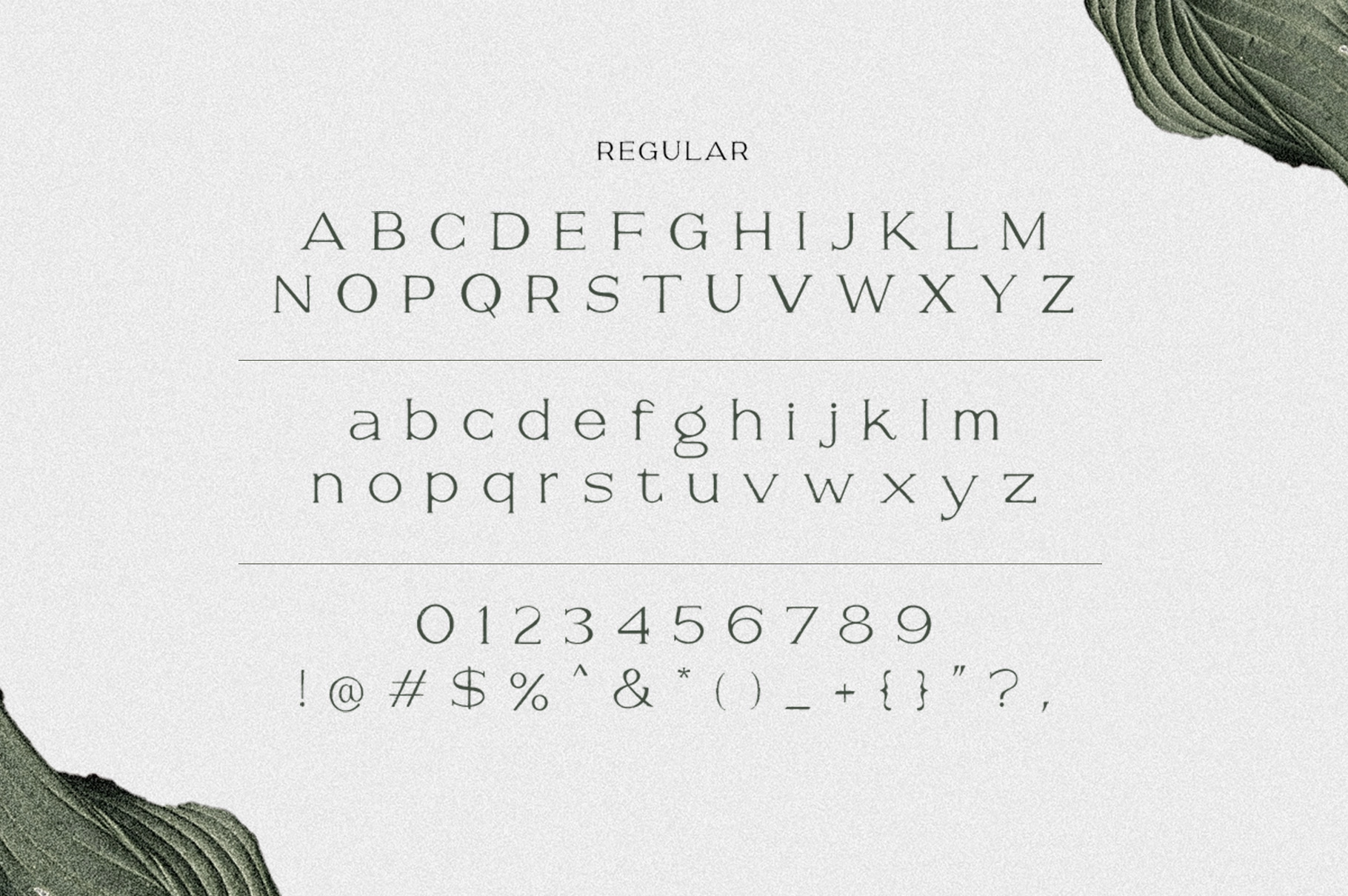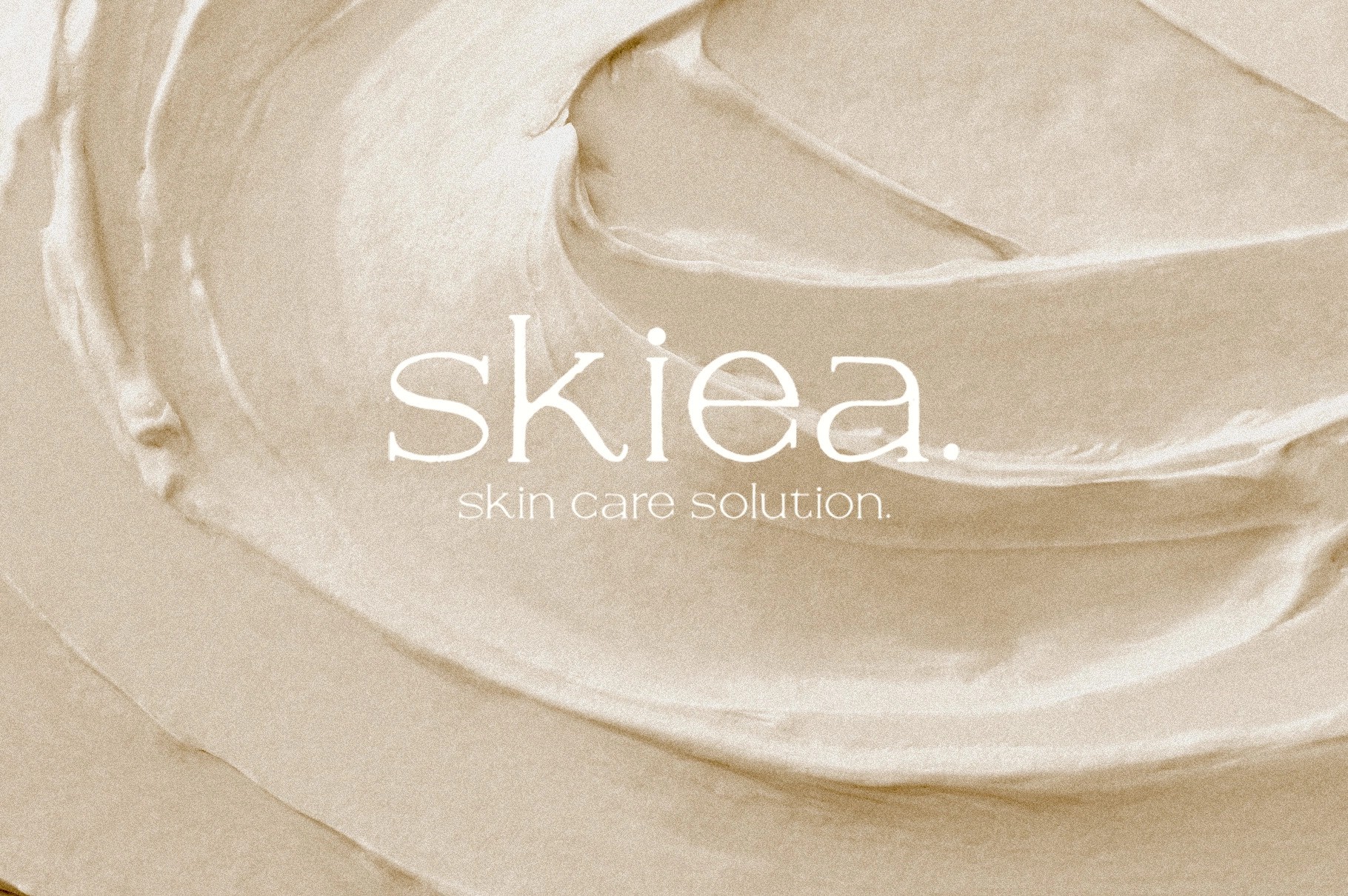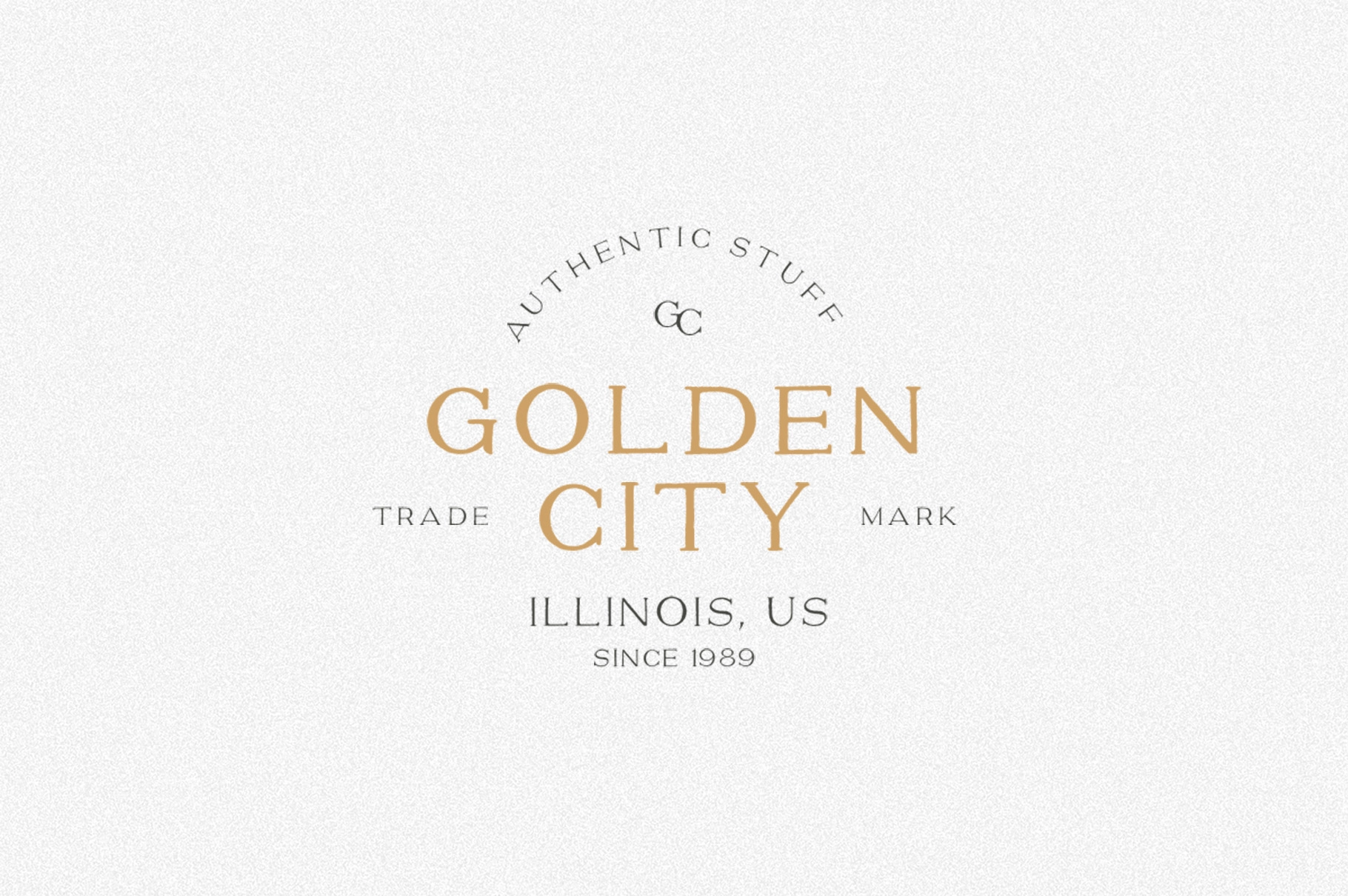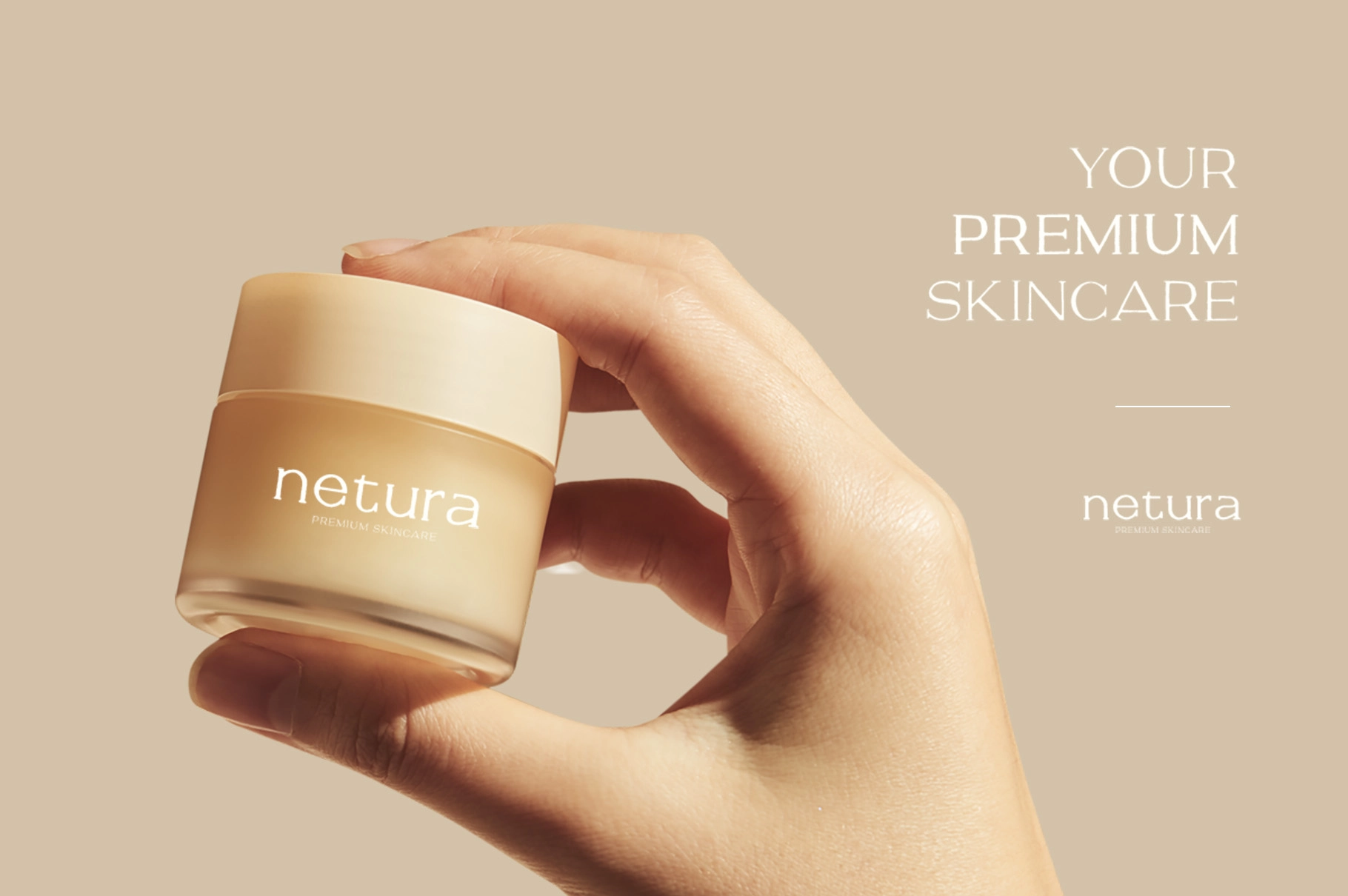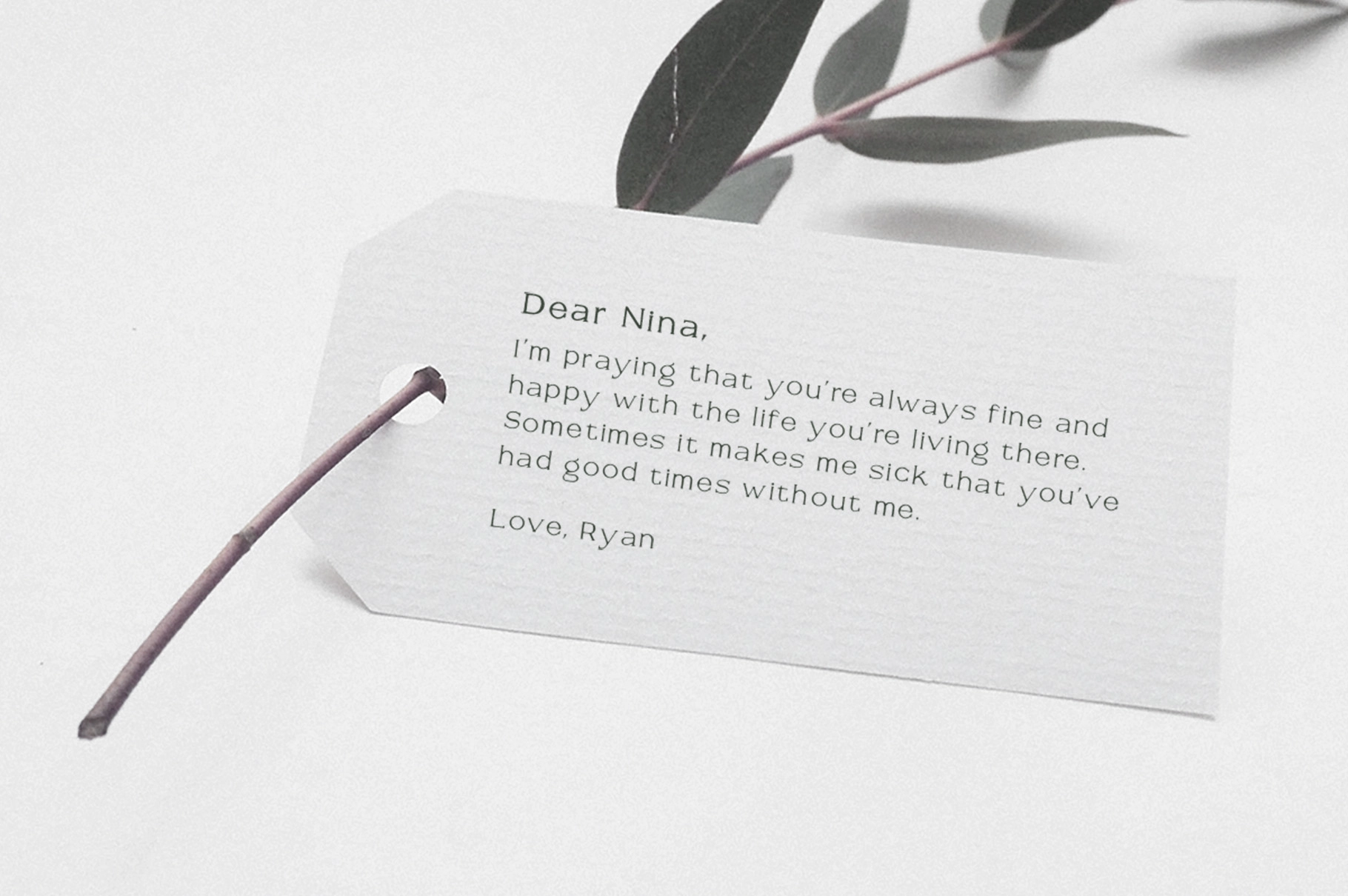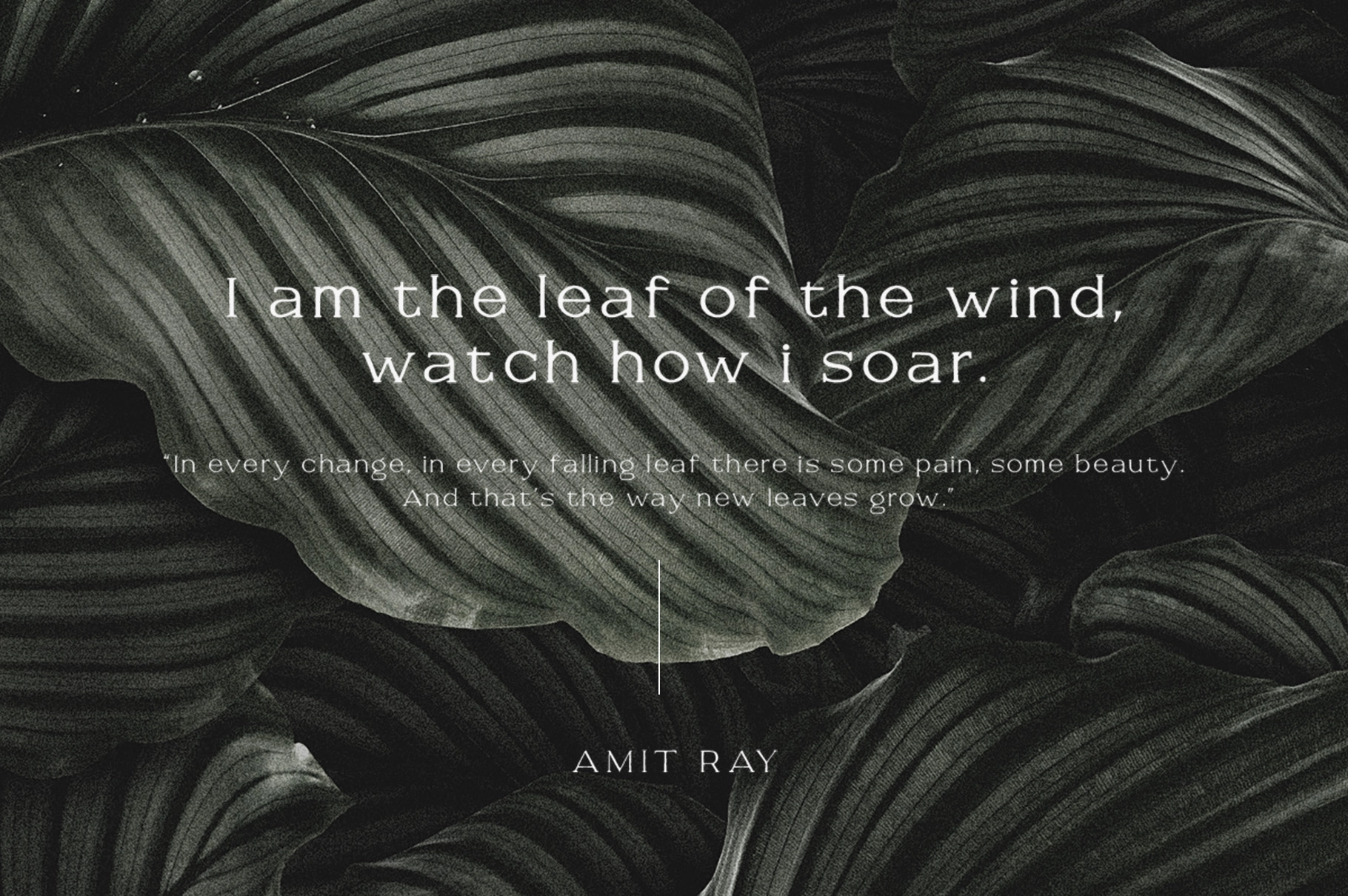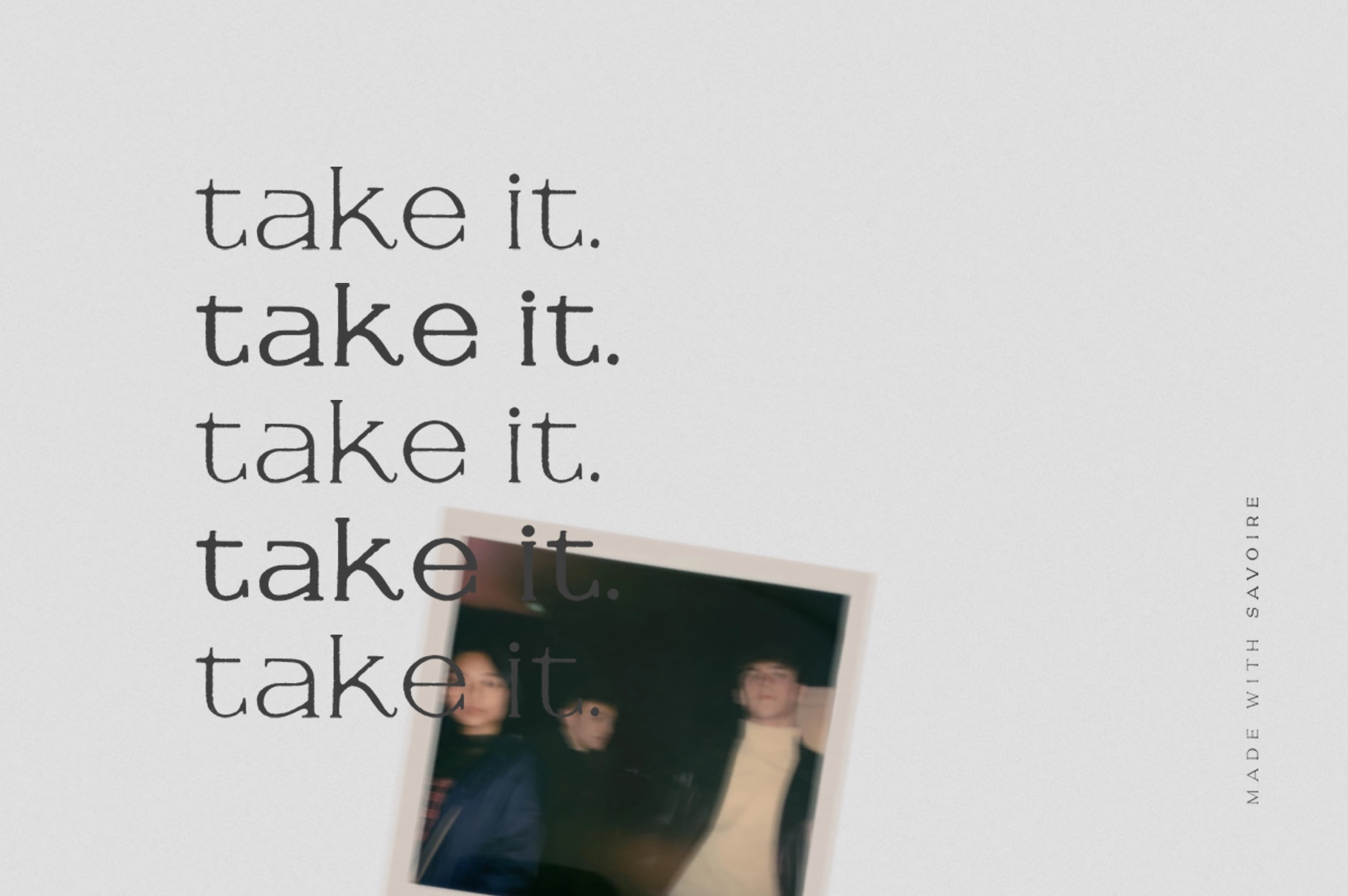
Savoire - Handwritten Serif Font
Savoire, Handwritten Serif Font is a hand-lettered serif with an organic, softly irregular rhythm that recalls Art Nouveau lettering, botanical bookplates, and the quiet romance of early twentieth-century print ephemera. It suits boutique branding, book covers, editorial titles, packaging, wedding stationery, café menus, and artisanal labels, especially where a project calls for warmth, intimacy, and a cultivated handmade character.